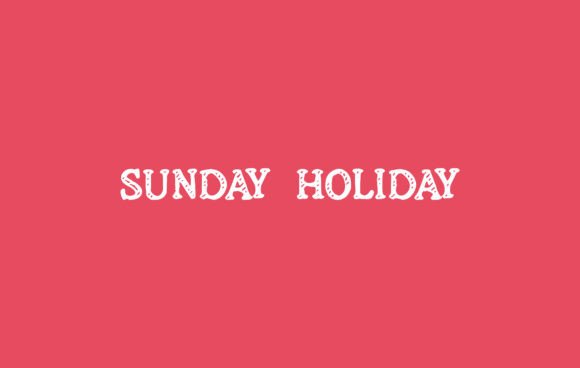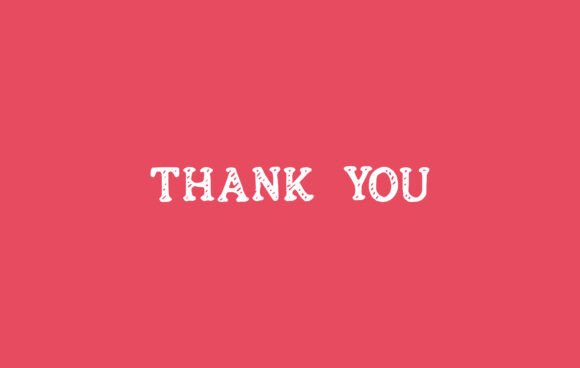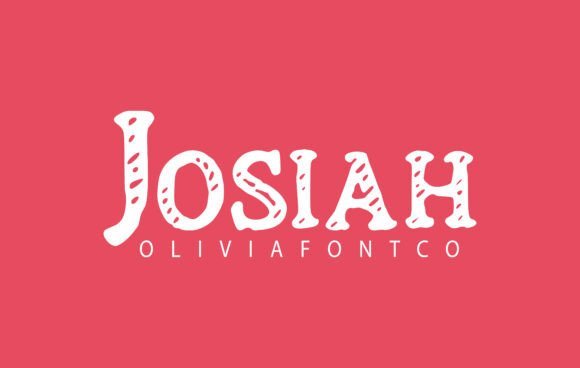
Introduction to Josiah Font
Josiah font is an authentic handwritten font with a romantic touch.
Key Features of Josiah Font
Why Choose Josiah Font?
Josiah Font offers exceptional quality and versatility, making it a valuable addition to your design toolkit. Whether you’re creating for personal projects or commercial use, Josiah Font delivers professional results.